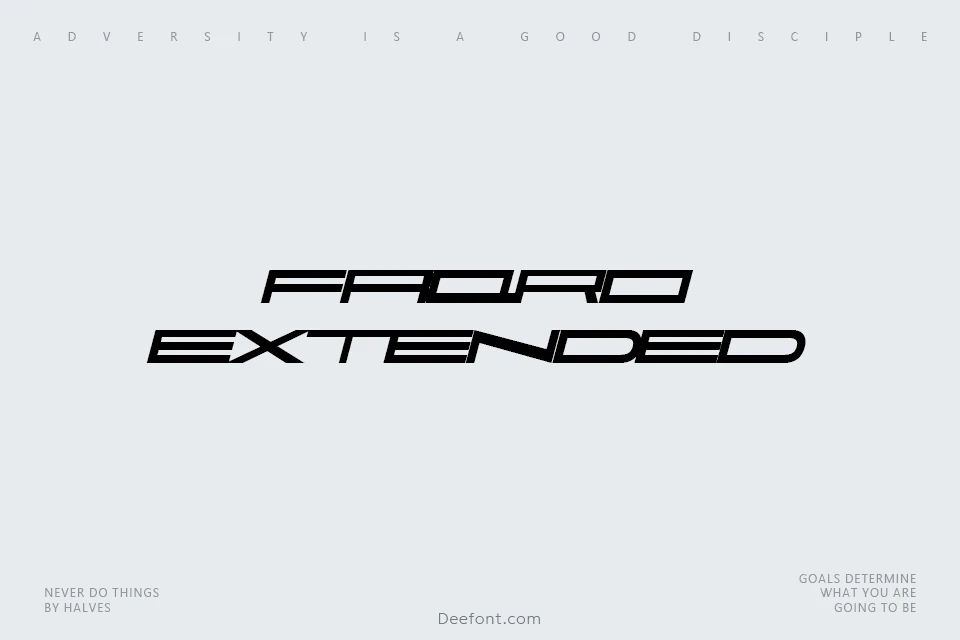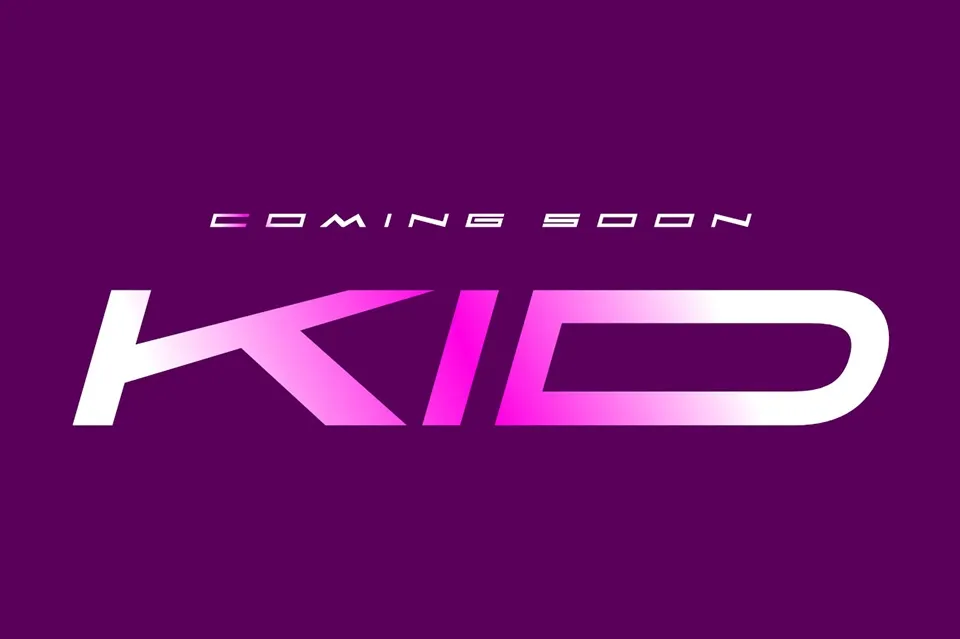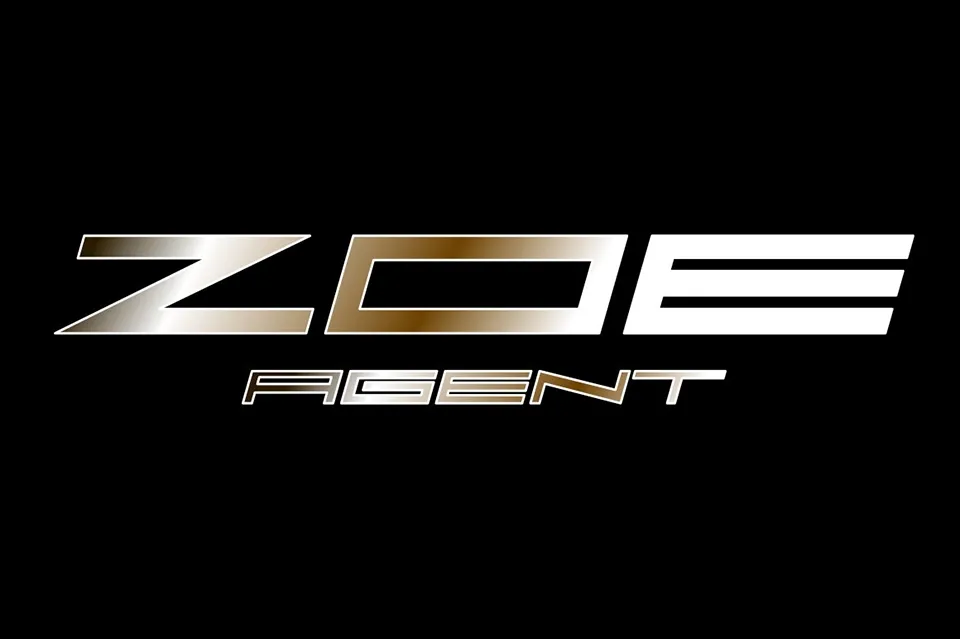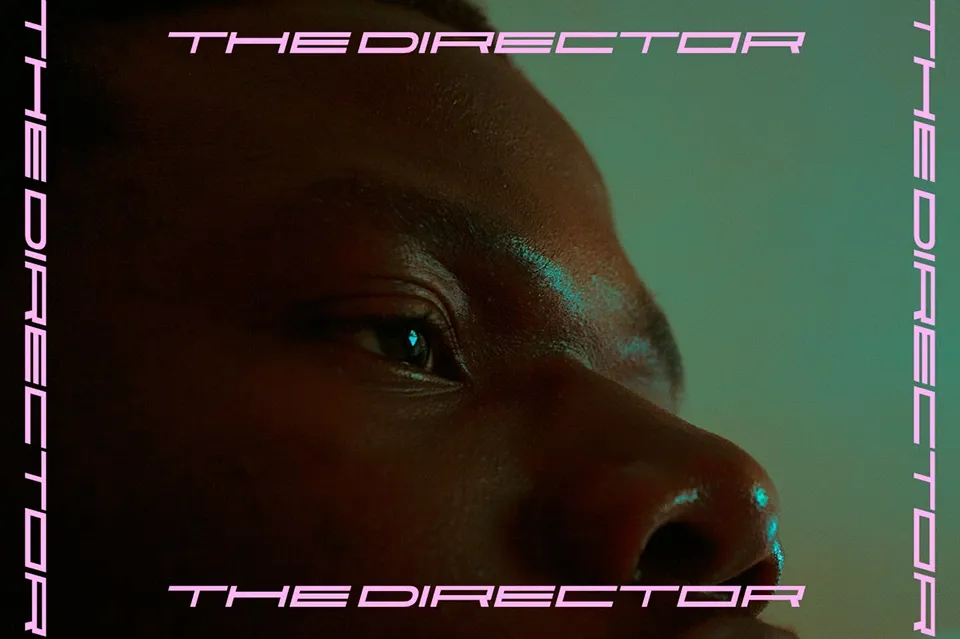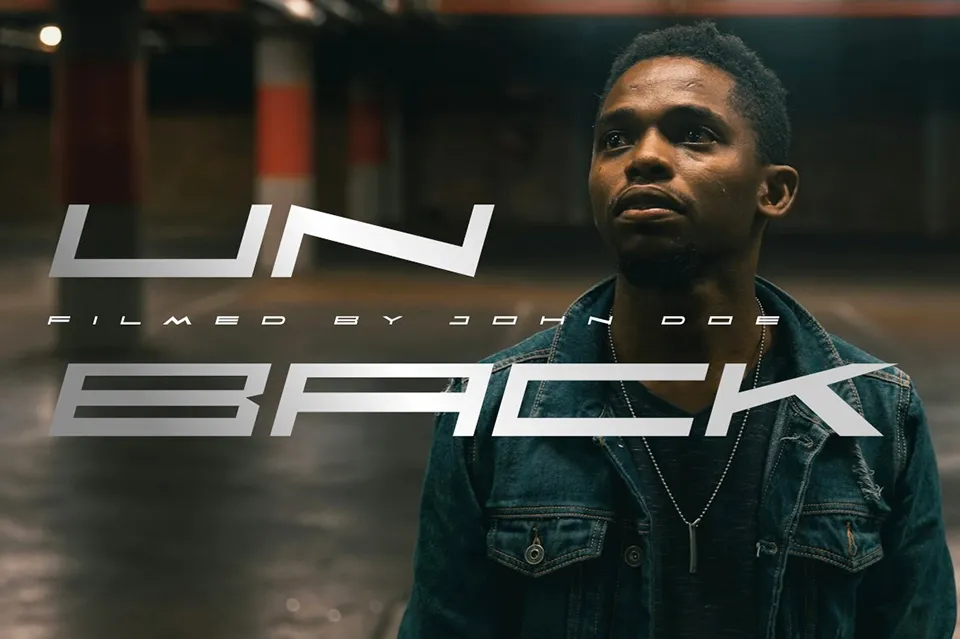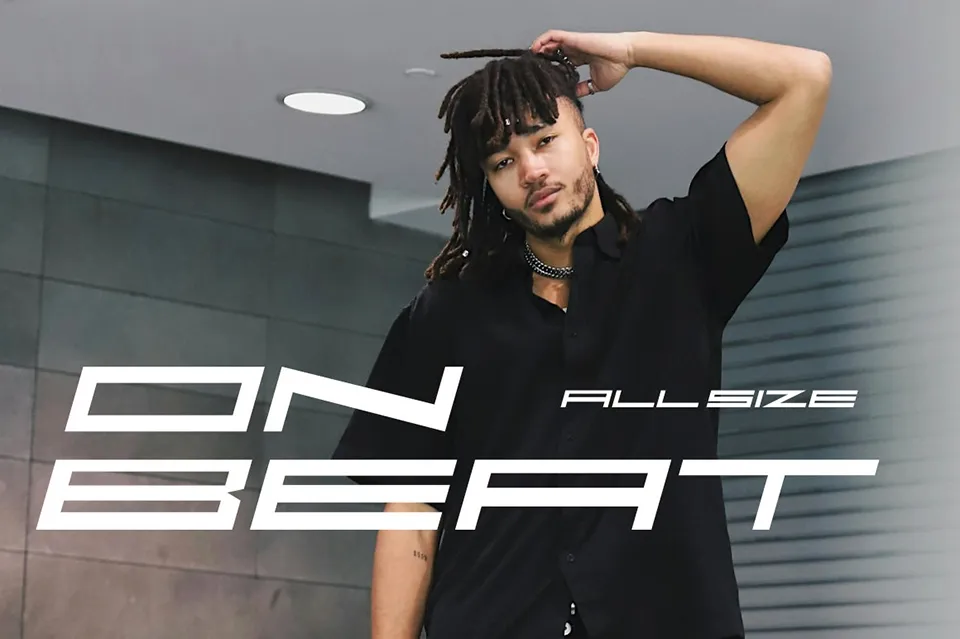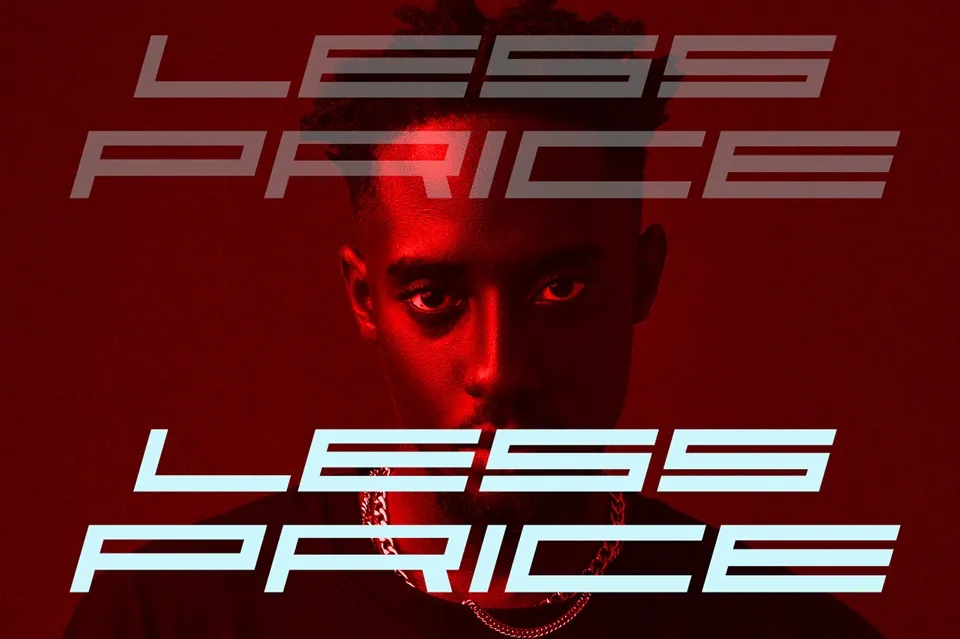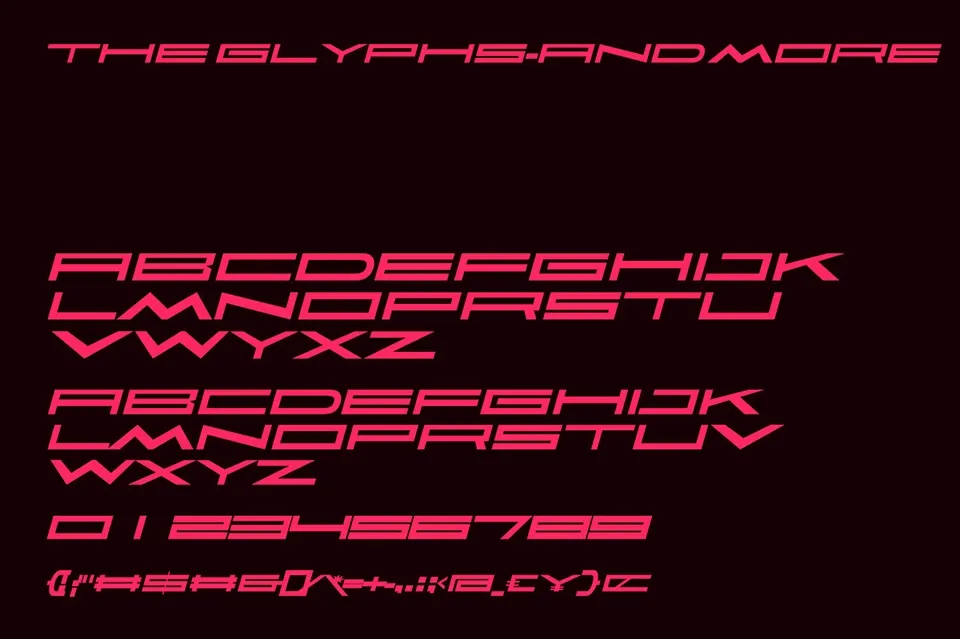
Faqro Extended Wide Italic Font
Faqro Extended Wide Italic Font is a futuristic, geometric sans serif display font designed with a wide and italicized stance, perfect for bold headlines, posters, and modern branding. Its robotic and techno-inspired letterforms make it ideal for projects seeking a contemporary, high-impact look. The font features uppercase, lowercase, numerals, and a range of symbols, offering versatility for creative design needs.